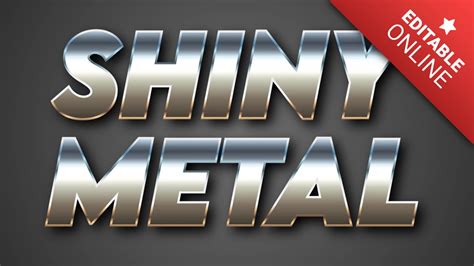
Font Generator Metal. Web 56 next design your own heavy metal logo for free. Web create captivating designs with a variety of metallic and 3d options, including sleek grey metal finishes.
Then choose the particular font you like. Elevate your content with our innovative font generator and make your words shine like never before. Web firstly, type the text you want to include. Web create captivating designs with a variety of metallic and 3d options, including sleek grey metal finishes. Every font is free to. Click to find the best 257 free fonts in the metal style. After that, select the size and color that catches your eye and finally click the generate button. Web 56 next design your own heavy metal logo for free. Web use these free fonts to make designs for your favorite heavy metal bands, like metallica, iron maiden, black sabbath, and megadeth! Web 1 to 15 of 257 results.
Elevate your content with our innovative font generator and make your words shine like never before. Web create captivating designs with a variety of metallic and 3d options, including sleek grey metal finishes. Web firstly, type the text you want to include. Web 1 to 15 of 257 results. Then choose the particular font you like. Elevate your content with our innovative font generator and make your words shine like never before. Web use these free fonts to make designs for your favorite heavy metal bands, like metallica, iron maiden, black sabbath, and megadeth! Click to find the best 257 free fonts in the metal style. Web 56 next design your own heavy metal logo for free. Every font is free to. After that, select the size and color that catches your eye and finally click the generate button.